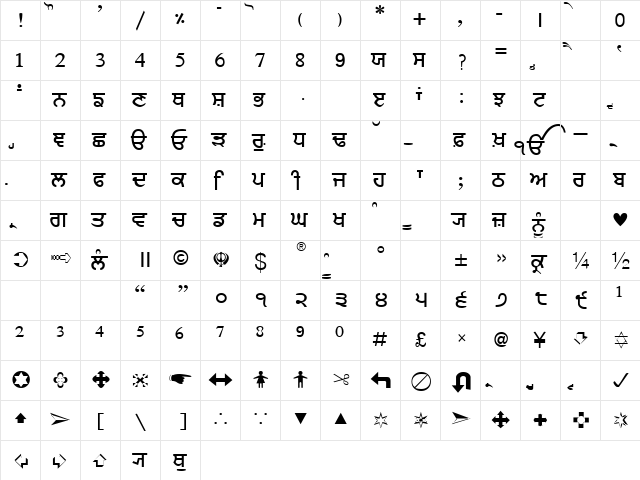
Janmeja2002june3 Normal
Design Context for Janmeja2002june3 Typeface
Janmeja2002june3 takes a measured approach to typography — its balanced proportions and neutral character make it a reliable workhorse for both digital and print work.
Pro Tip: Use Janmeja2002june3 in both headline and body roles to test its range before committing to a single application.